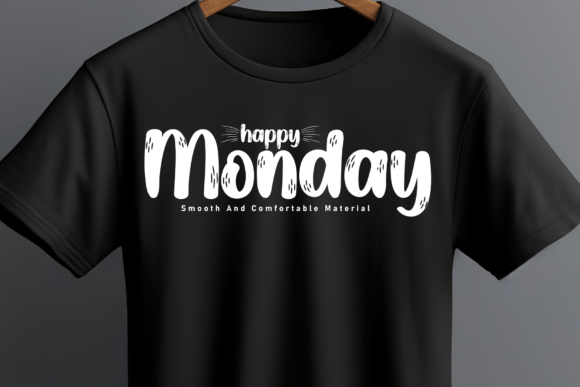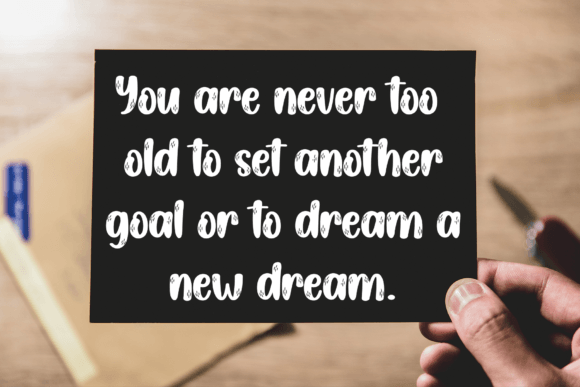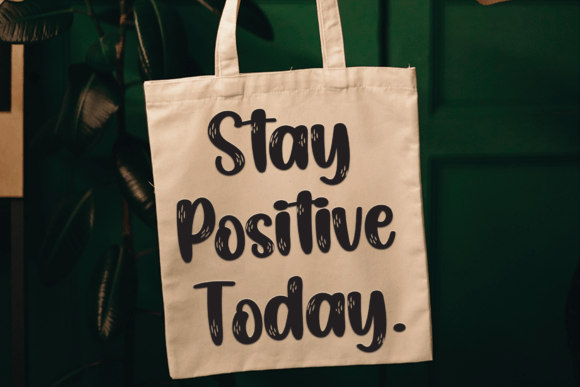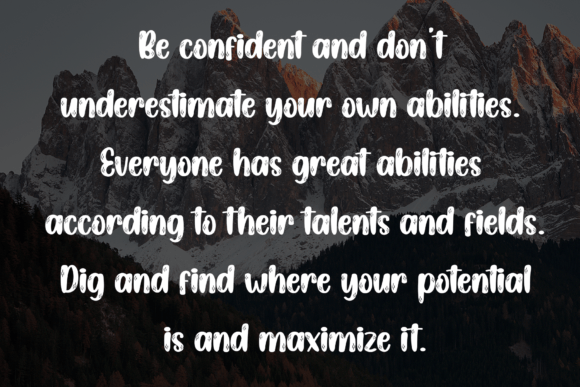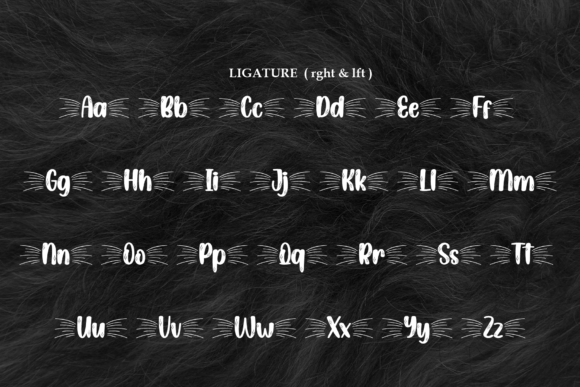
Discover the Charm of Hairy Font: Elevate Your Designs with a Lovely Handwritten Style
In the world of typography, few fonts manage to capture the essence of personal touch and elegance as beautifully as the Hairy Font. This lovely and timeless handwritten font has been making waves among designers and crafters alike, and for good reason. Its unique charm and character make it the perfect choice for creating eye-catching logos, branding materials, and quotes that stand out from the crowd.
The Unique Appeal of Hairy Font
What sets Hairy Font apart from other fonts is its distinctive, handcrafted feel. Every letter in this font has been carefully designed to bring a unique and beautiful touch to your designs. The irregularities and quirks that come with handwritten fonts are not only preserved but celebrated, giving your work a personal and approachable feel that resonates with audiences.
Whether you’re a professional designer looking for a font that will make your client’s brand stand out, or a crafter seeking a unique style for your handmade products, Hairy Font is an excellent choice. Its versatility means it can be used across a wide range of projects, from elegant wedding invitations and bespoke stationery to vibrant posters and captivating social media graphics.
Key Features of Hairy Font
- Timeless Appeal: Unlike trendy fonts that may quickly go out of style, Hairy Font’s classic handwritten look ensures it remains relevant and stylish for years to come.
- Unique Character: Each letter is meticulously crafted, offering a one-of-a-kind feel that adds personality to any design.
- Ease of Use: Designed with user-friendliness in mind, Hairy Font is easy to incorporate into your projects, whether you’re working with graphic design software or crafting by hand.
- Versatility: Suitable for a wide range of applications, from digital designs to print materials, ensuring your work looks great in any medium.
Tips for Using Hairy Font Effectively
To make the most of Hairy Font, consider the following tips:
- Mix and Match: Combine Hairy Font with other fonts for a layered look. Pairing it with a clean, sans-serif font can create a visually appealing contrast.
- Play with Sizes: Don’t be afraid to experiment with different font sizes. Larger text can make a bold statement, while smaller text can add subtle detail to your designs.
- Emphasize with Colors: The right color choice can elevate your design. Consider the mood you want to convey and select colors that complement Hairy Font’s natural warmth.
Hairy Font is more than just a font; it’s a tool for designers and crafters to infuse their work with personality, charm, and a touch of handmade elegance. Its timeless appeal, unique character, and versatility make it an invaluable asset for anyone looking to create eye-catching logos, branding materials, and quotes. By incorporating Hairy Font into your projects, you’re not just choosing a font; you’re embracing a style that speaks to warmth, creativity, and individuality.
So, why settle for ordinary when you can make your designs extraordinary with Hairy Font? Explore its possibilities today and discover how this lovely handwritten font can bring your creative visions to life.